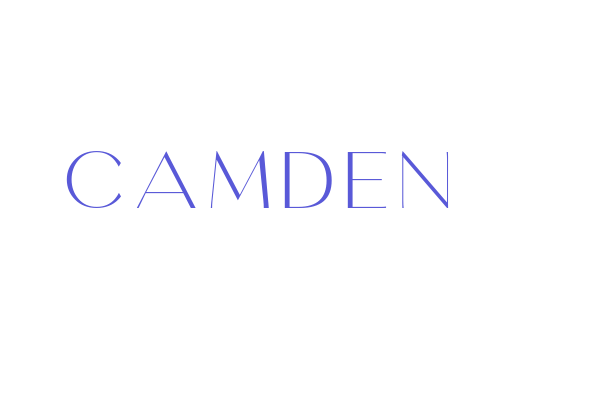
Camden is a basic sans serif font designed by Muhamad Fikry Nuralif. With a clean and modern style, this font is perfect for a wide range of design projects. Its simplicity and readability make it ideal for use in logos, headlines, and body text.